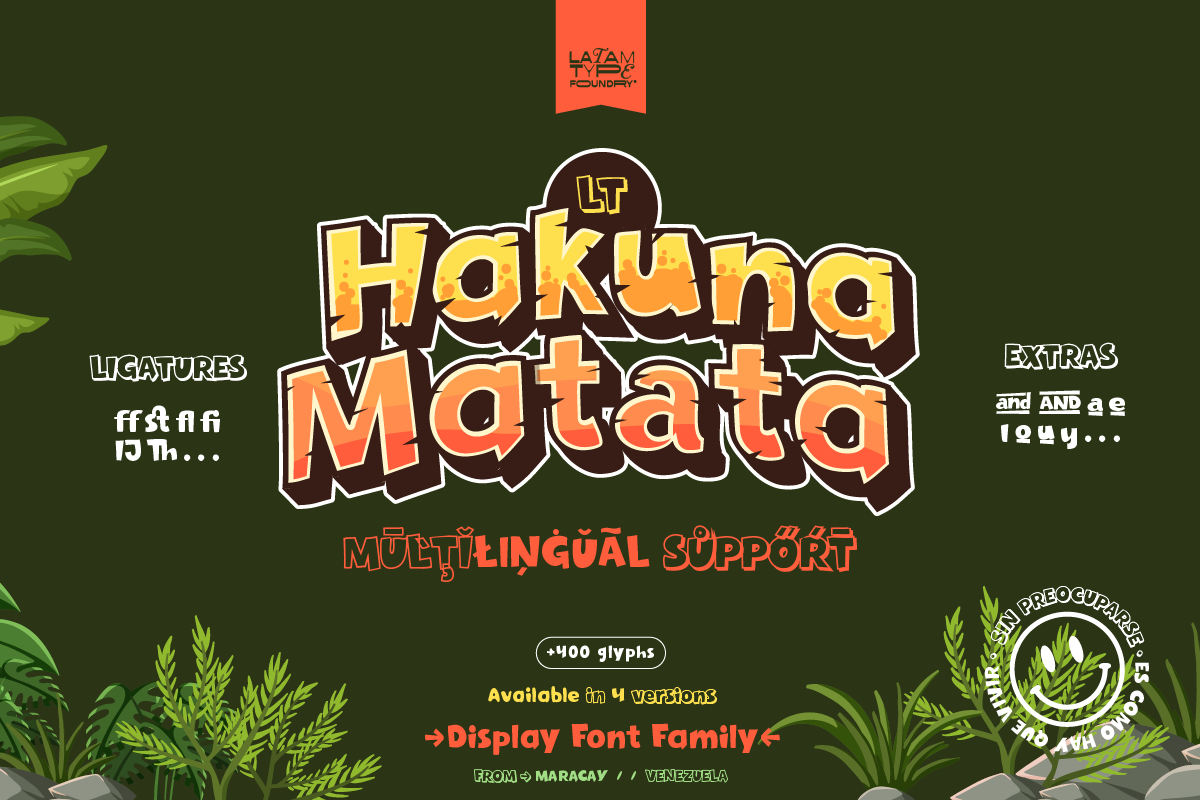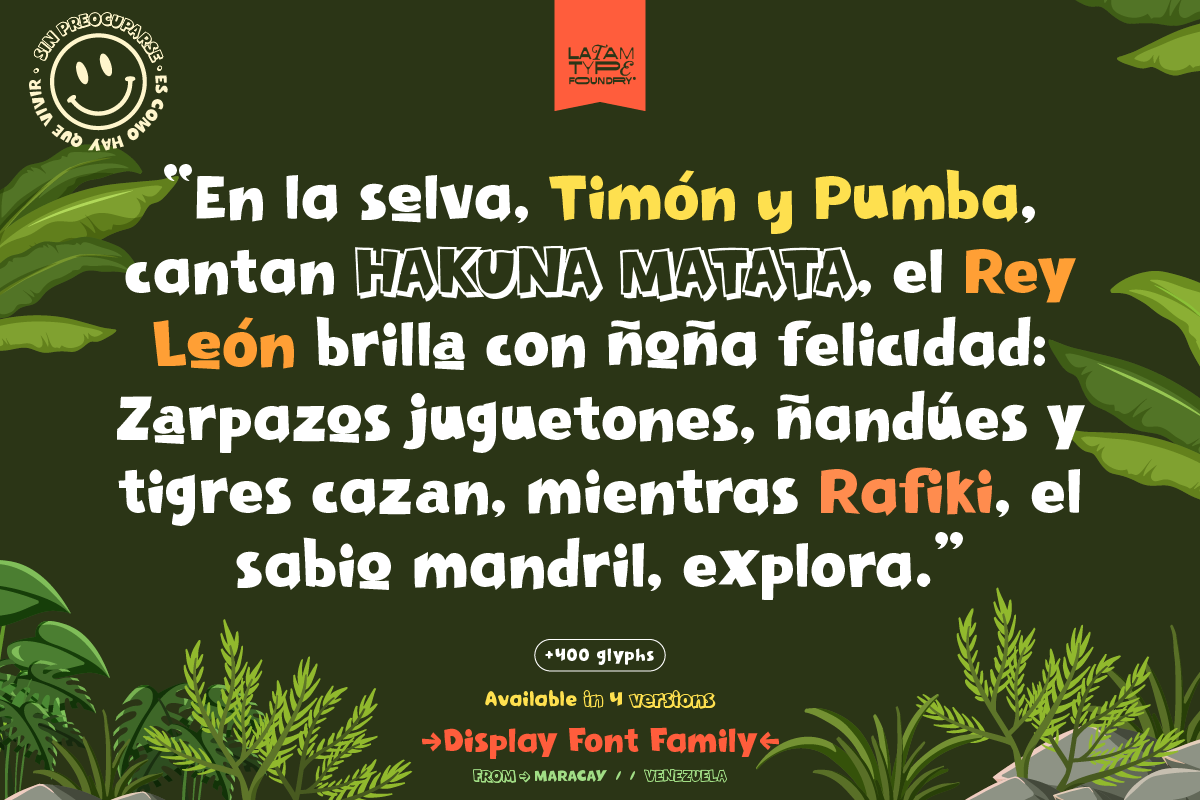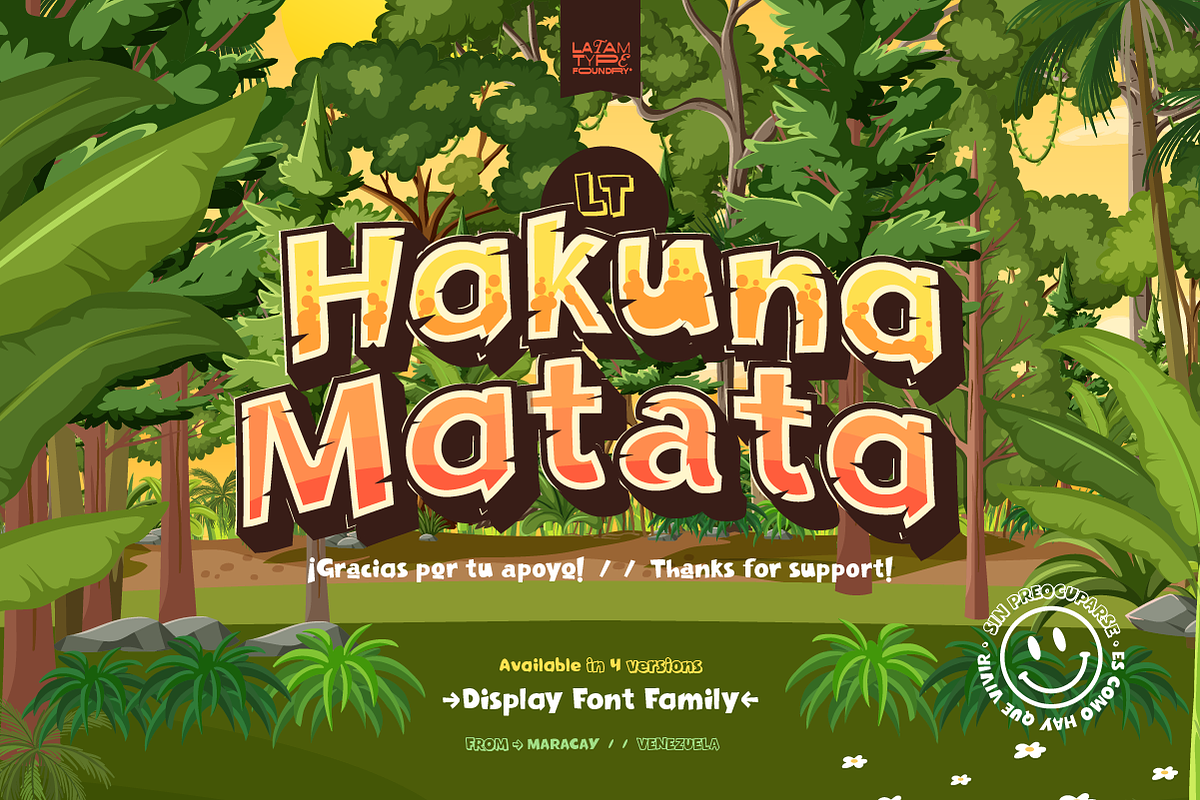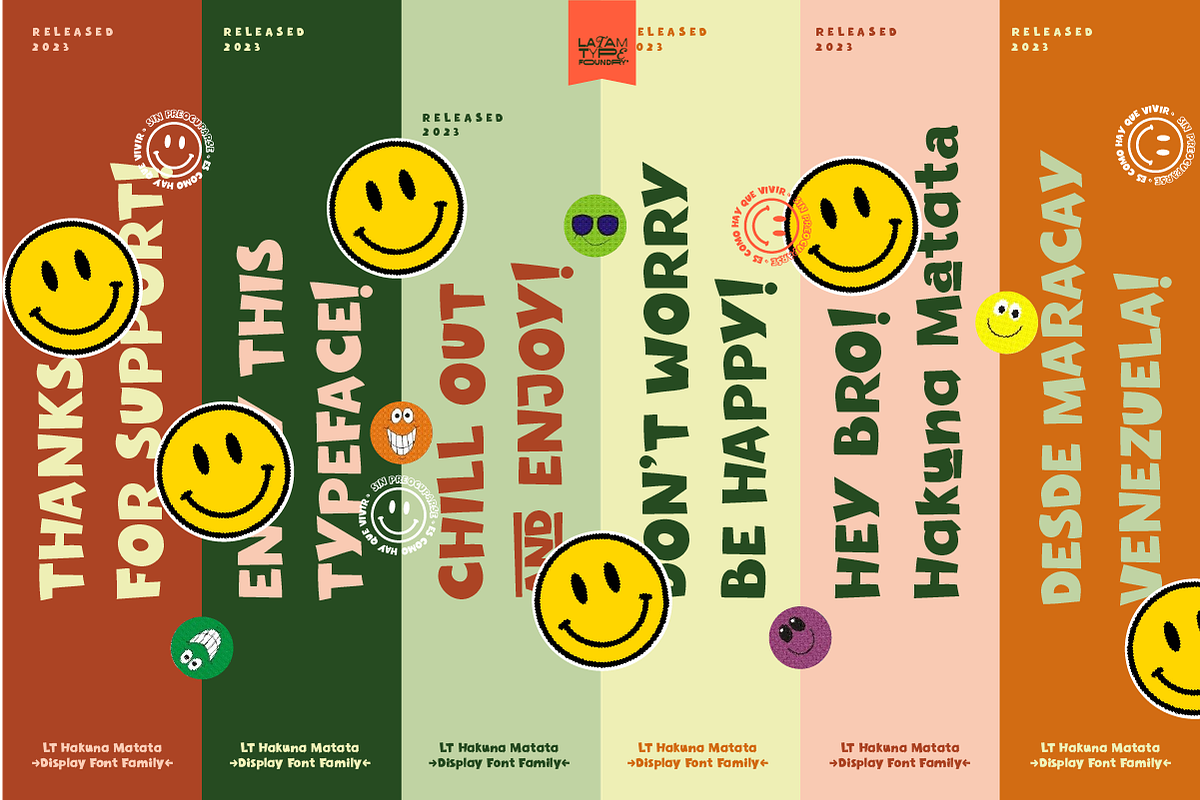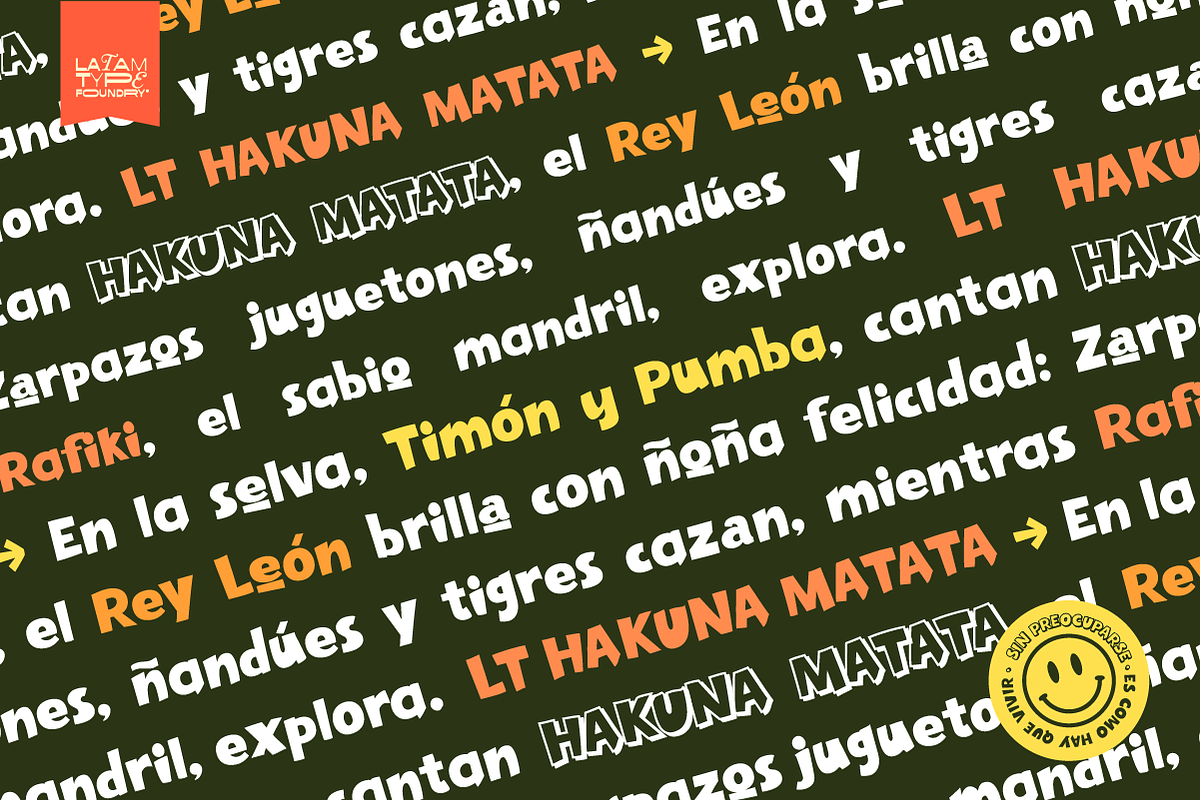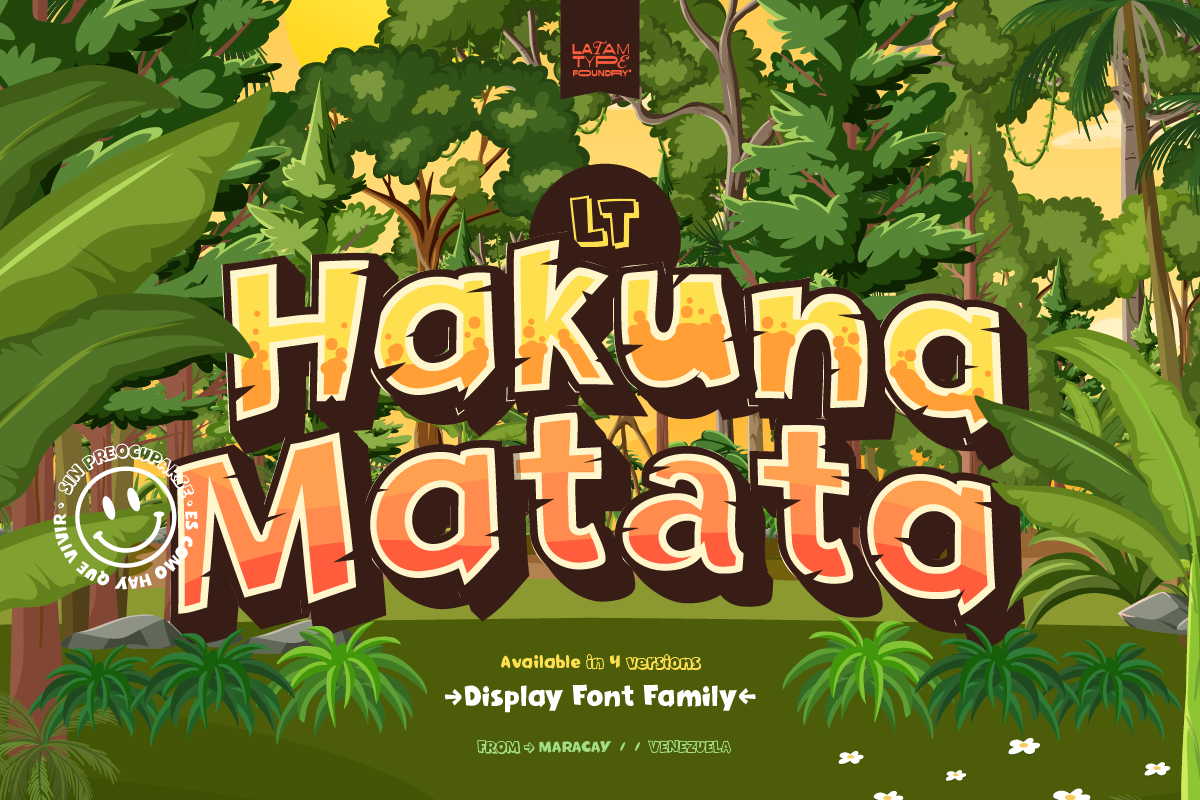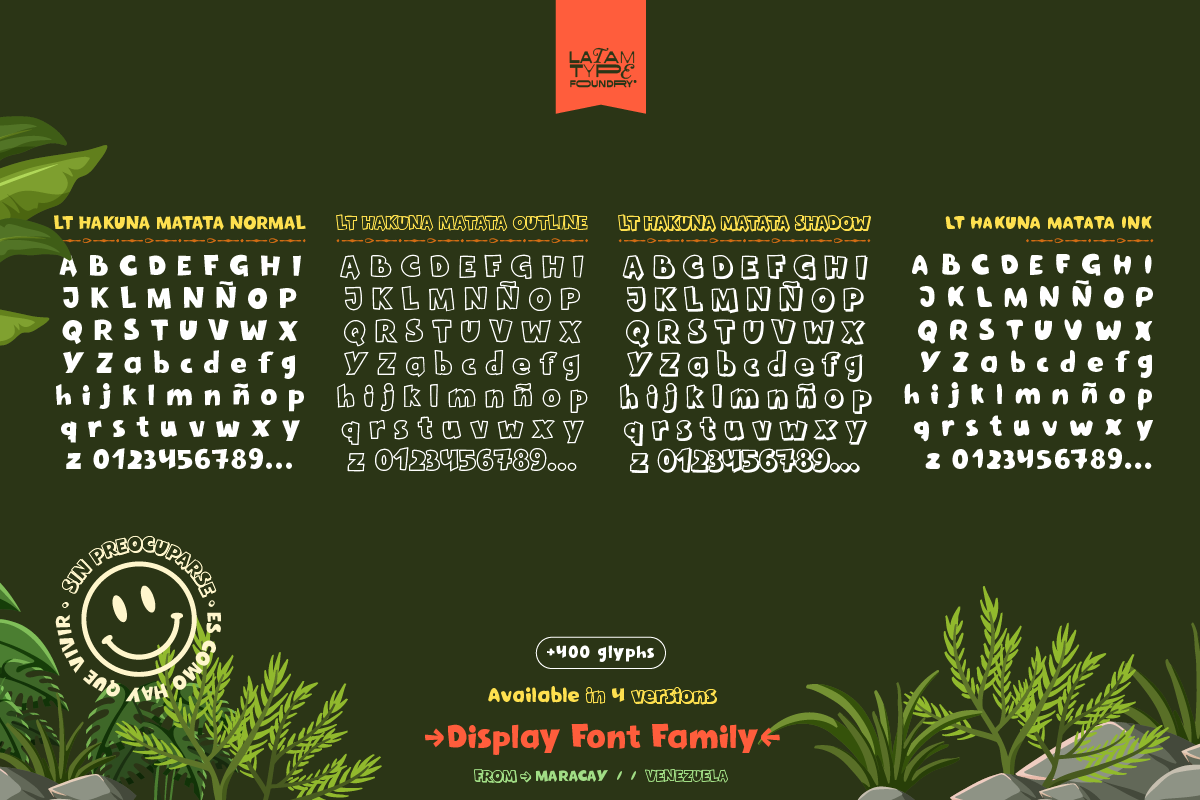
LT Hakuna Matata - Display Font
Introducing the LT Hakuna Matata Display font, inspired by the enchanting world of The Lion King! This funny display typeface captures the joyful spirit of Hakuna Matata while infusing the charming essence of Timon and Pumbaa. Available in three exciting variations: Normal, Outline, Shadow e Ink, this font will infuse your projects with the vibrant energy of the African savannah. The Normal version of LT Hakuna Matata embodies the carefree and friendly vibes of Timon and Pumbaa as they embark on their adventures. The letters boast a clean and crisp appearance, perfect for titles and headings that aim to convey joy and vitality.
The Outline version adds an artistic and playful twist to the typography. Each letter is outlined with elegant lines reminiscent of the silhouettes of savannah animals. Ideal for projects that seek to stand out and captivate attention with a unique and creative style.
For an even more whimsical touch, the Inline version of Hakuna Matata Display font combines the solidity of the Normal with the playfulness of interior lines. Every letter is accompanied by subtle inline details that add a dash of extravagance and dynamism, perfect for projects aiming for a more youthful and entertaining look.
With LT Hakuna Matata, your designs will come alive with the energy and positivity of The Lion King. Whether you're crafting invitations for a themed party, decorating a child's room, or designing educational materials, this typeface will be your perfect companion for conveying the magic and happiness of Hakuna Matata. Let your letters roar with fun and adventure!
¡Presentamos la tipografía LT Hakuna Matata Display font → inspirada en la magia y la diversión del clásico El Rey León! Esta fuente divertida display combina la alegría de Hakuna Matata con la esencia encantadora de los personajes Timón y Pumba. Disponible en cuatro emocionantes versiones: Normal, Outline, Shadow e Ink, esta tipografía seguramente hará que tus proyectos brillen con un toque de la sabana africana.
La versión Normal de LT Hakuna Matata captura la esencia despreocupada y amigable de Timón y Pumba mientras se embarcan en sus aventuras. Las letras tienen un aspecto limpio y nítido, perfecto para títulos y encabezados que deseen transmitir alegría y energía.
La versión Outline añade un giro artístico y lúdico a la tipografía. Cada letra está contorneada con líneas elegantes que recuerdan a las siluetas de los animales de la sabana. Ideal para proyectos que buscan destacarse y atraer la atención con un estilo único y creative.
Y para un toque aún más juguetón, la versión ink de LT Hakuna Matata combina la solidez de la Shadow con la diversión de las sombras. Cada letra está acompañada por sutiles detalles en línea que añaden un toque de extravagancia y dinamismo, perfecto para proyectos que buscan un estilo más juvenil y entretenido.
Con LT Hakuna Matata, tus diseños cobrarán vida con la energía y la positividad de El Rey León. Ya sea que estés creando invitaciones para una fiesta temática, decorando una habitación infantil o diseñando materiales educativos, esta tipografía será tu compañera perfecta para transmitir la magia y la felicidad de Hakuna Matata.
¡Deja que tus letras rujan con diversión y aventura!